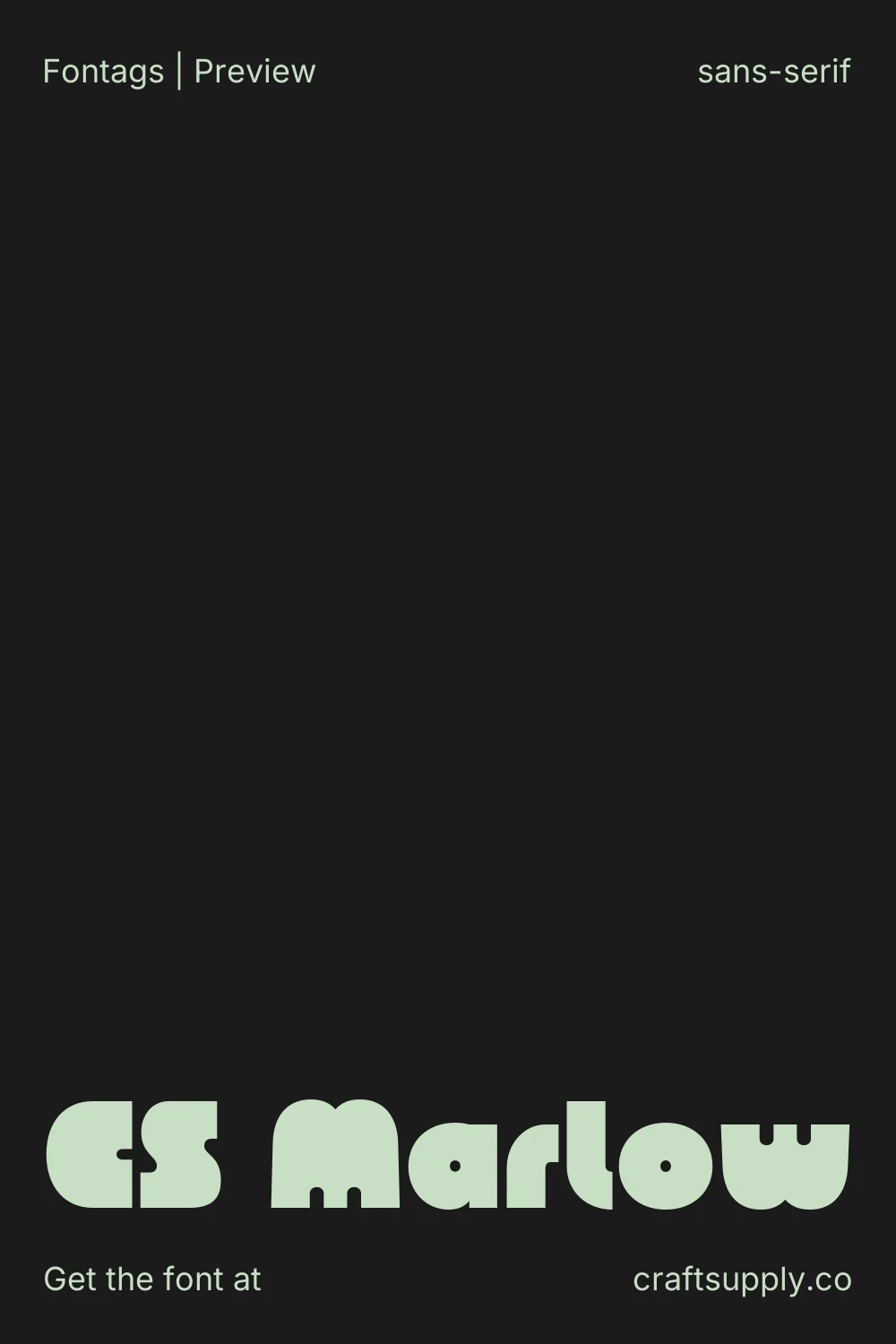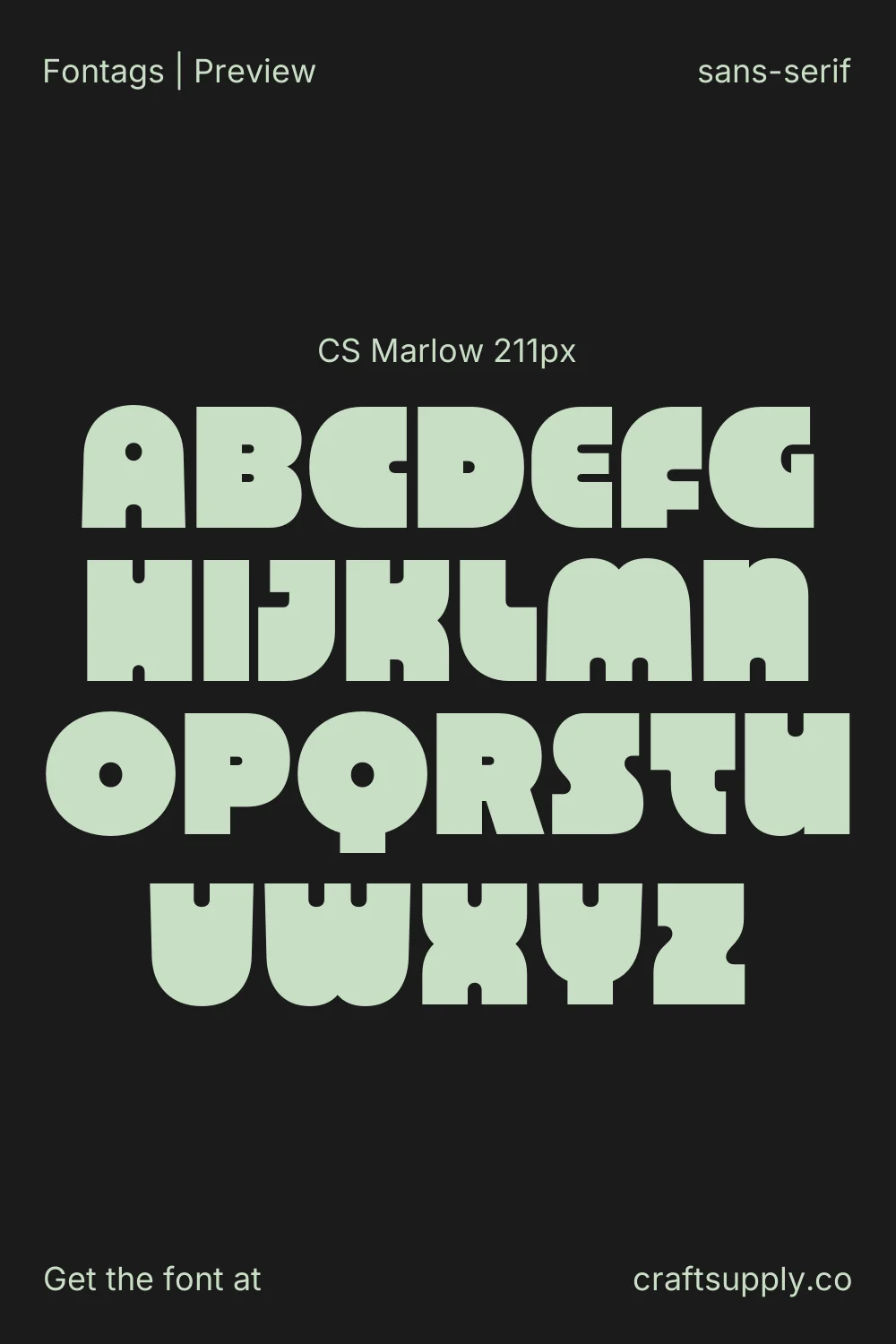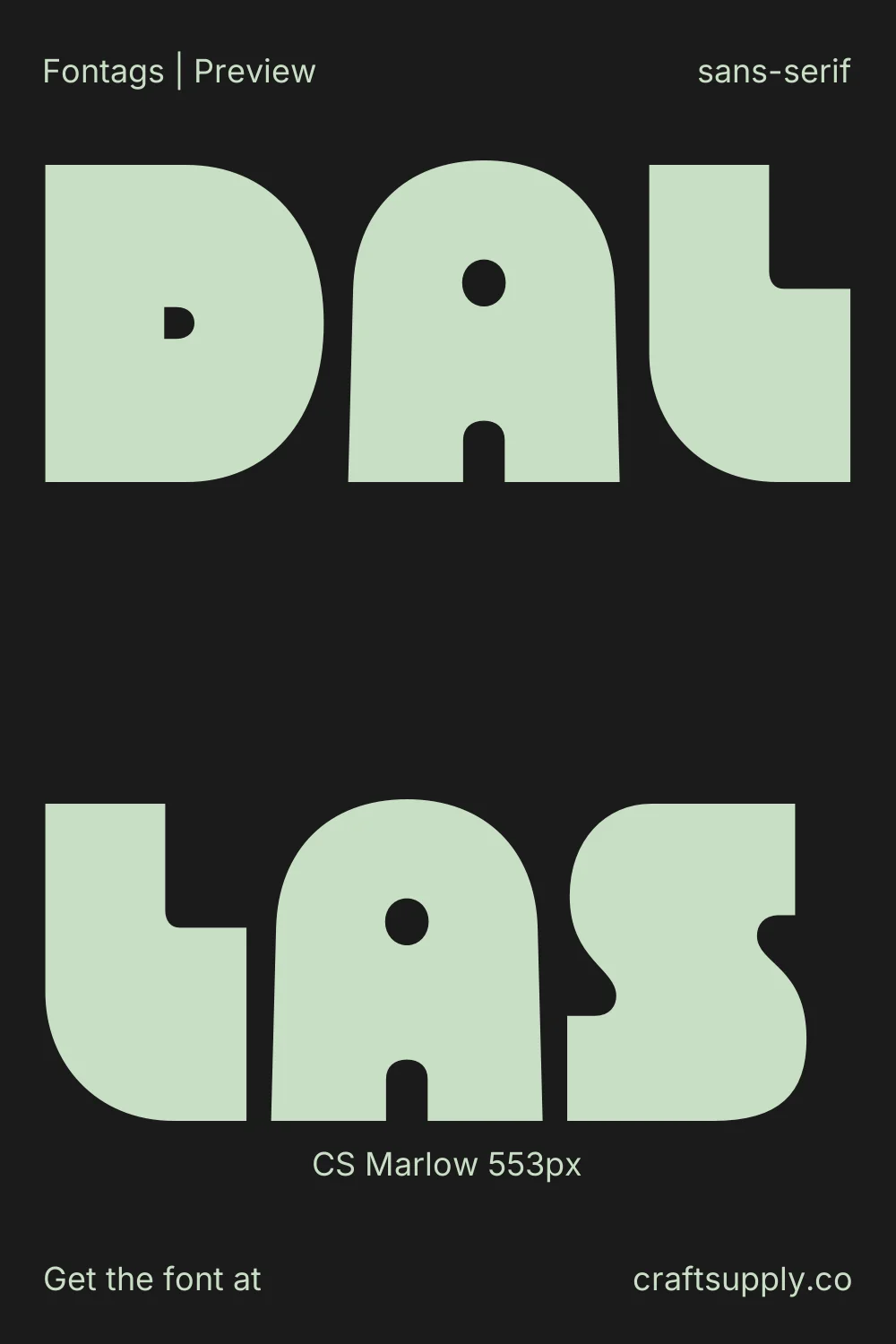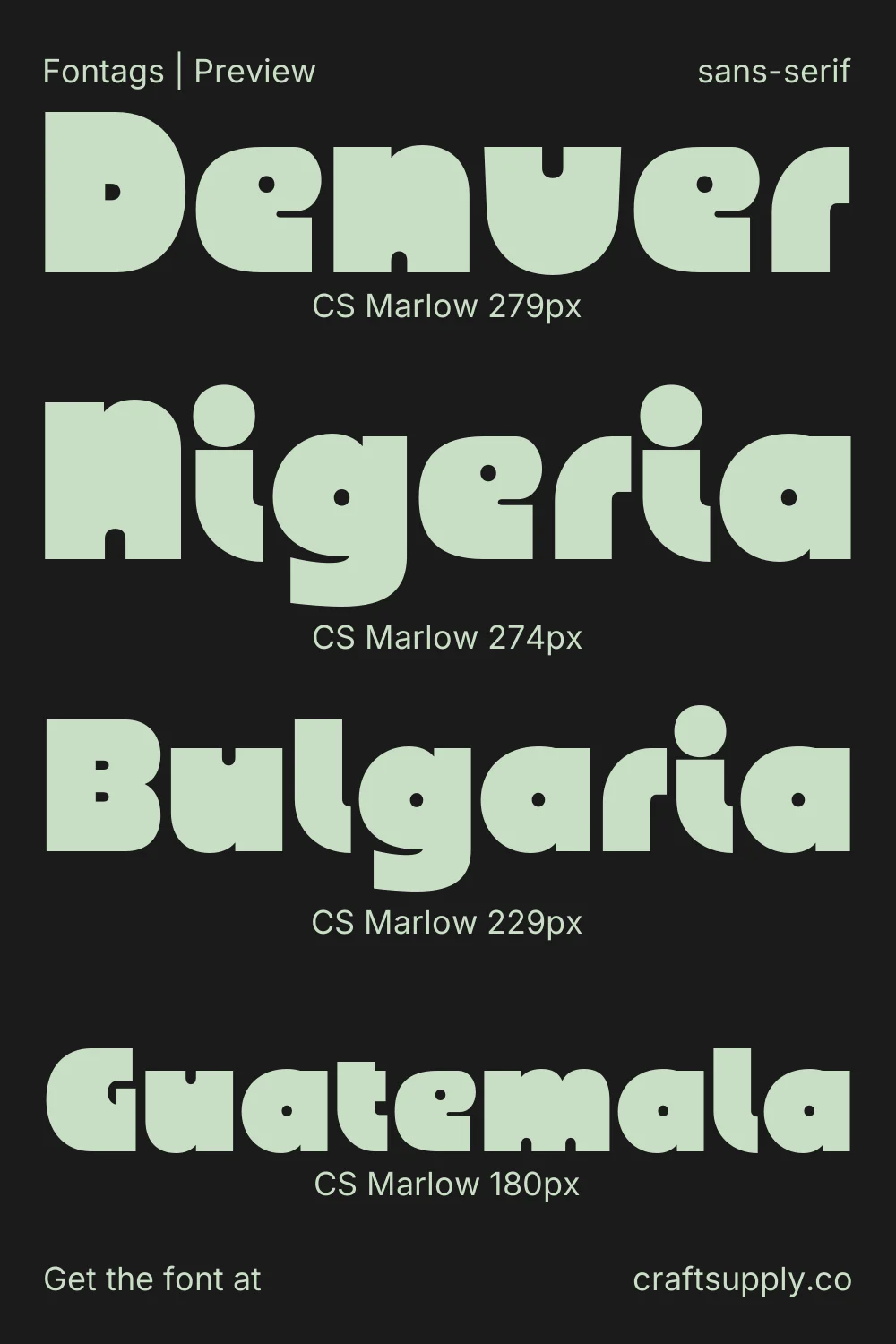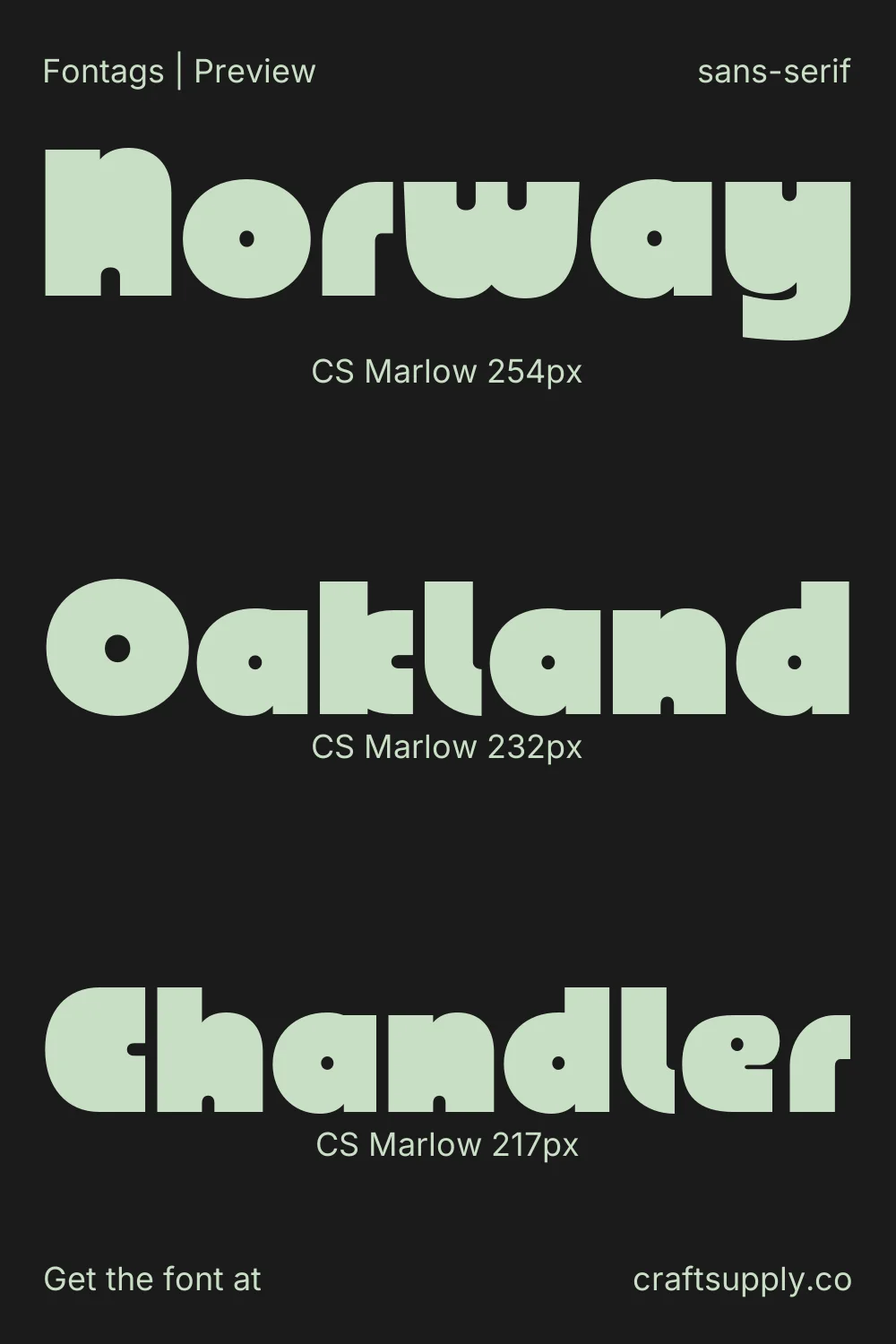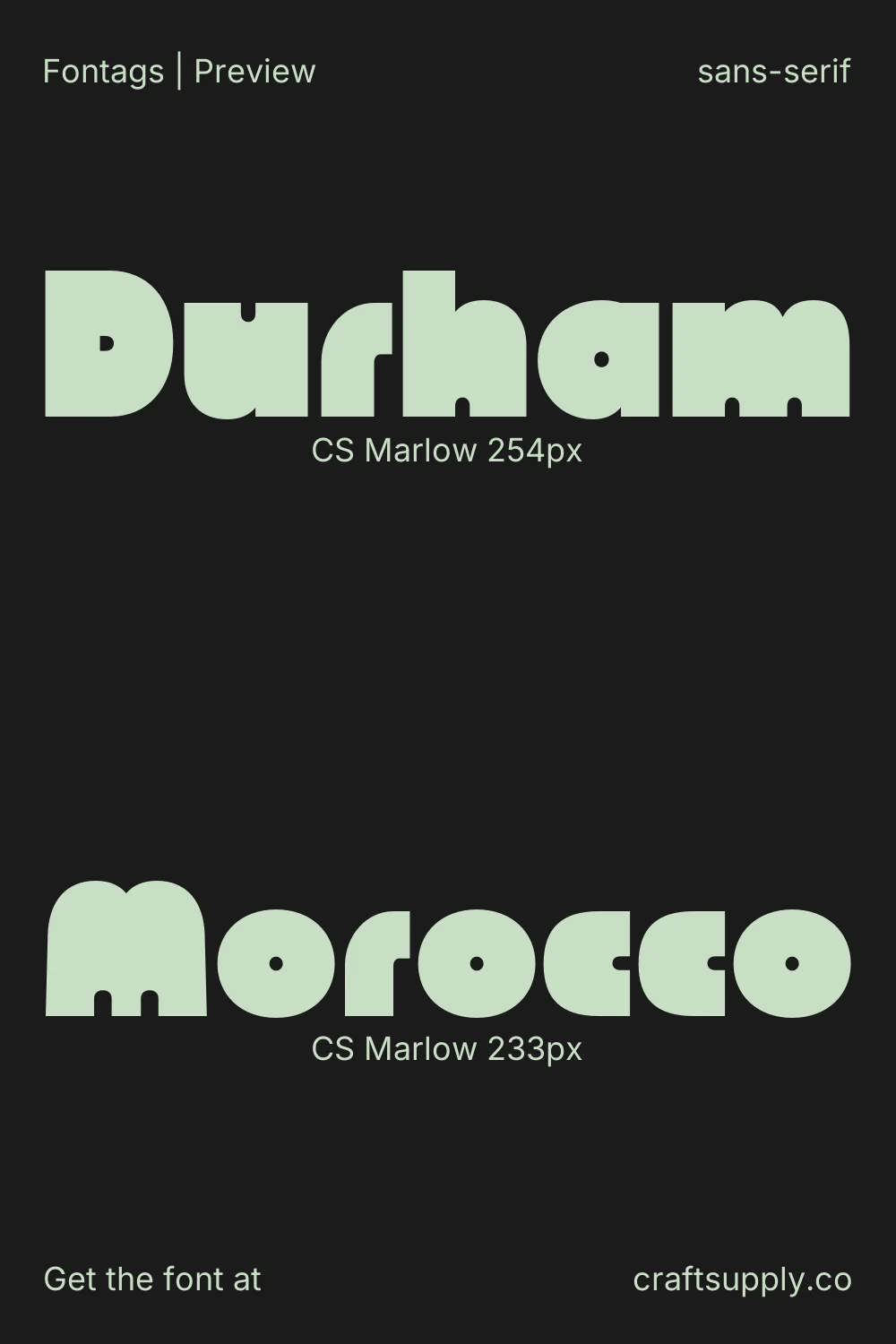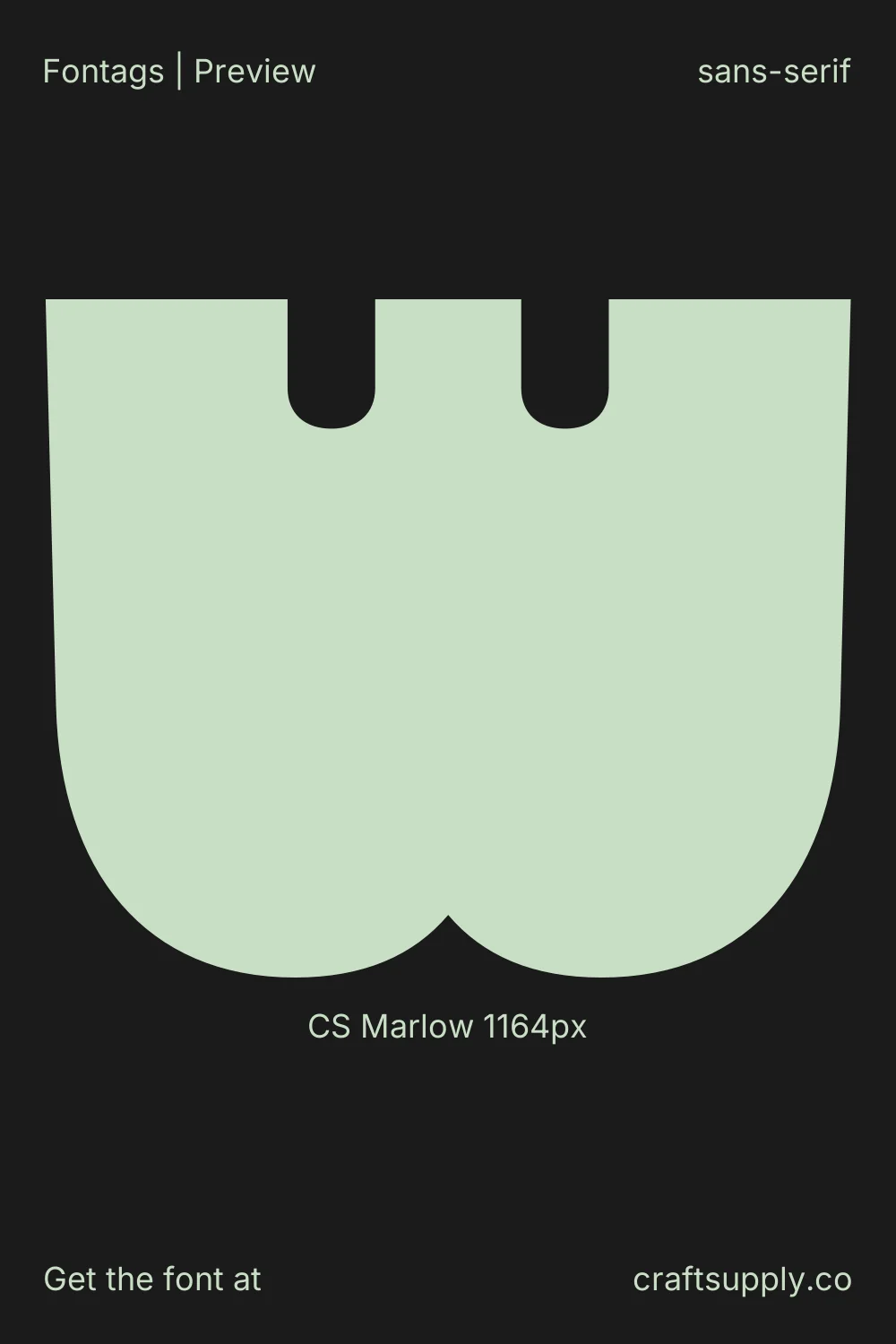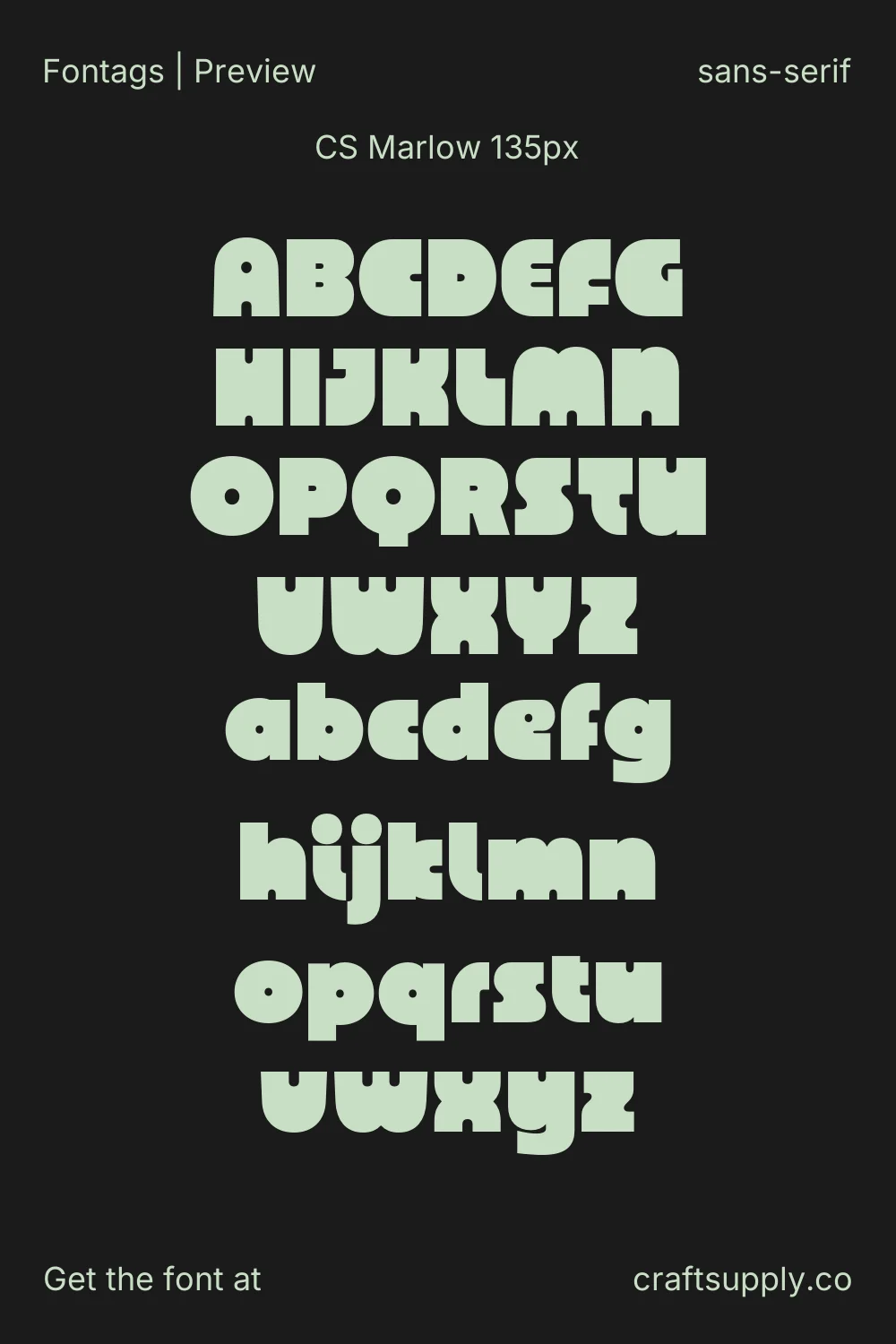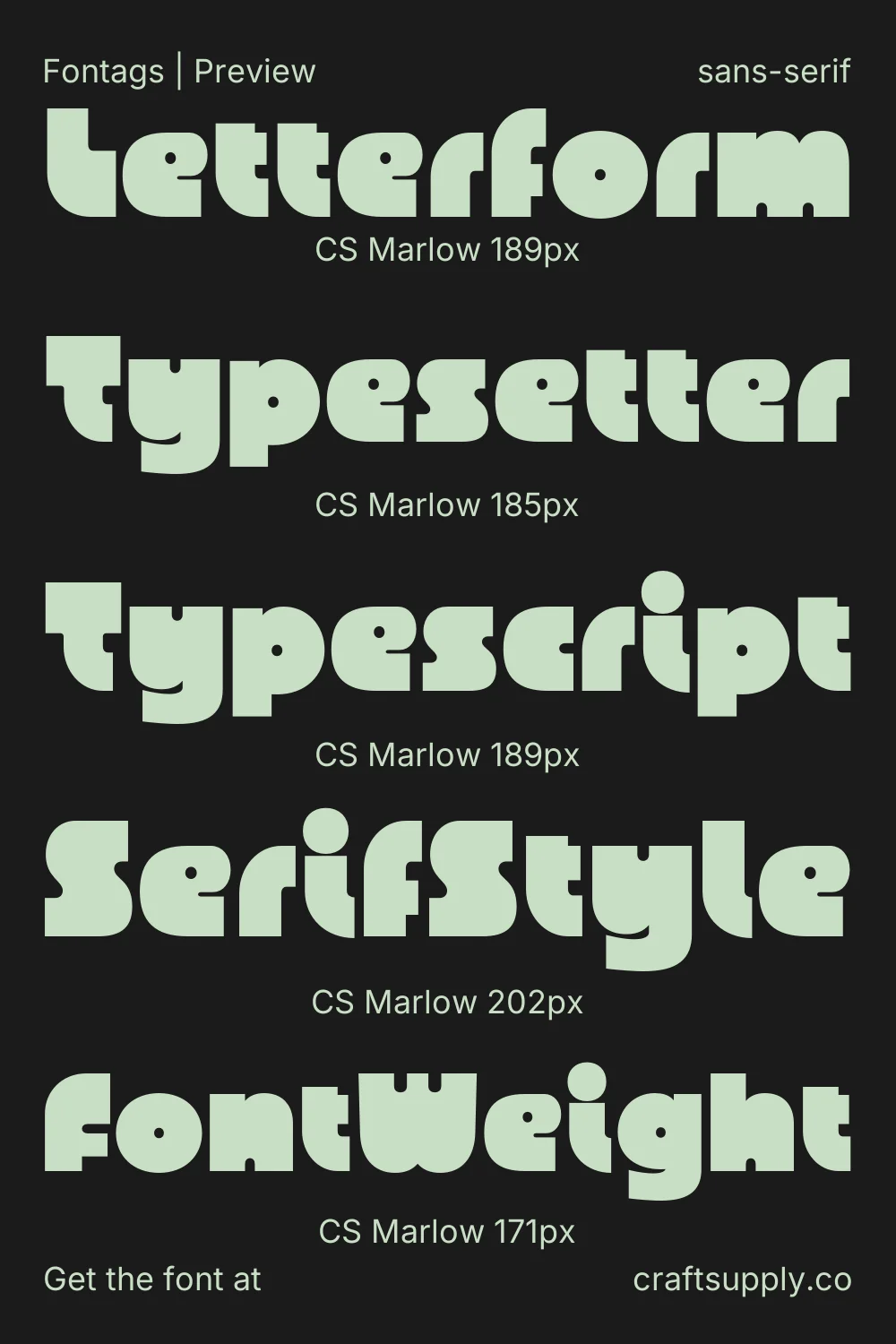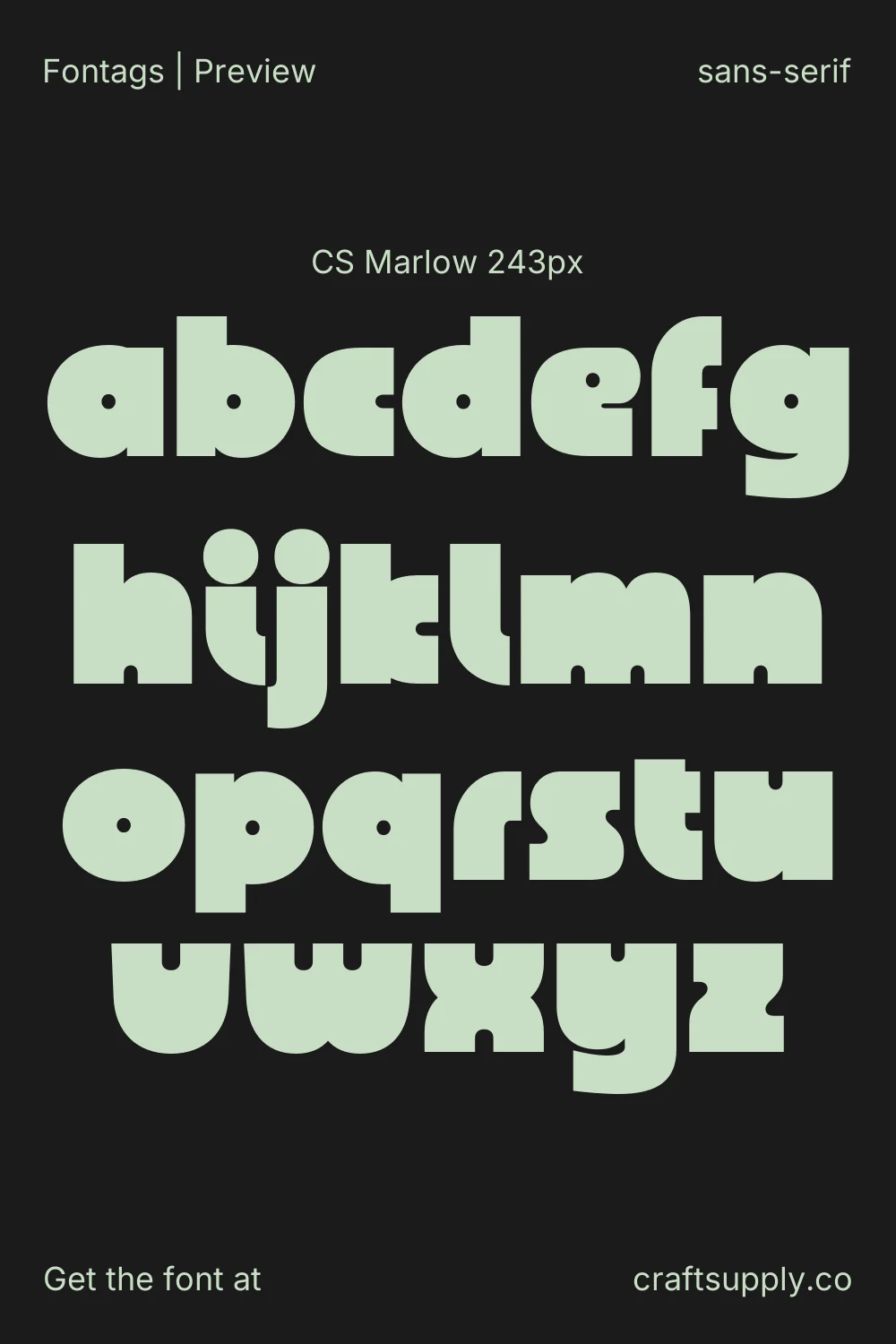
CS Marlow
CS Marlow is a bold display sans serif that infuses retro funk energy with modern clarity. Its strong, clean letterforms deliver a playful yet professional look, making it ideal for music posters, creative logos, product packaging, and event branding. The font's distinctive personality and readability ensure it stands out in both large displays and printed materials.